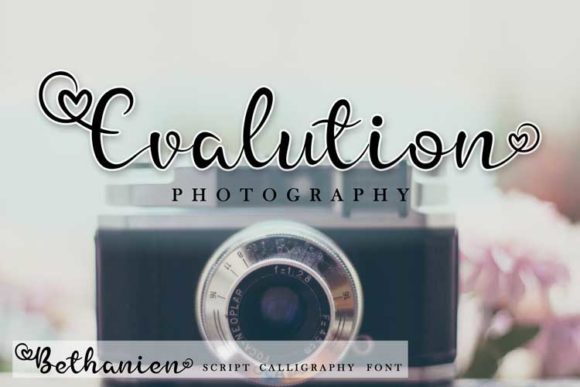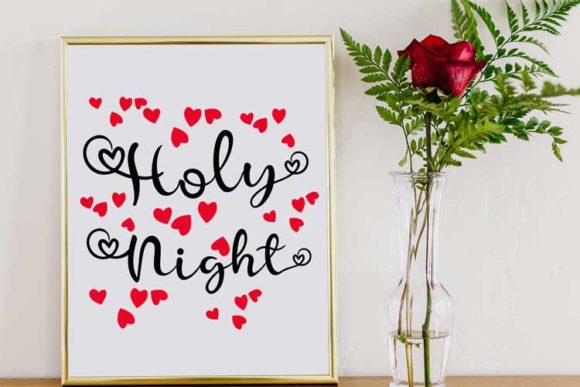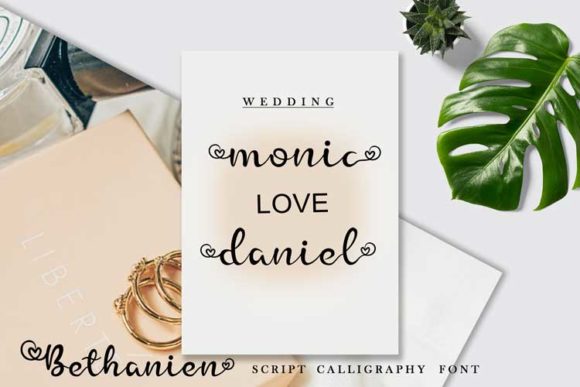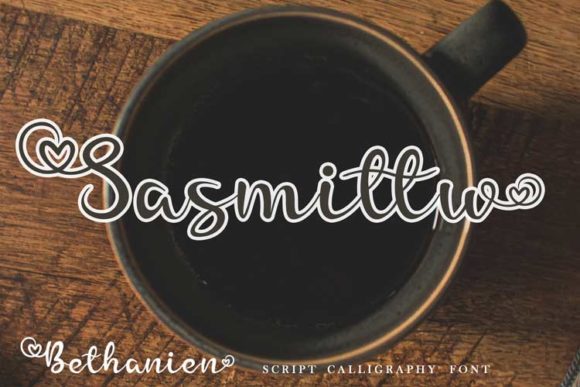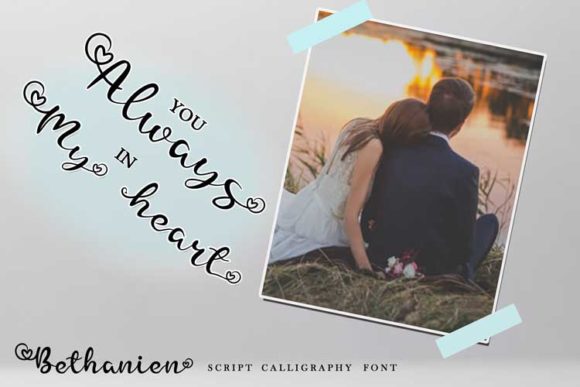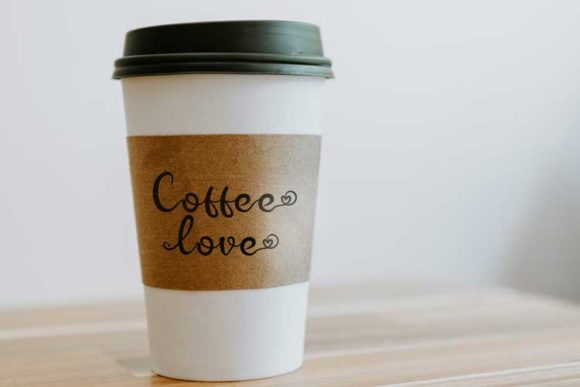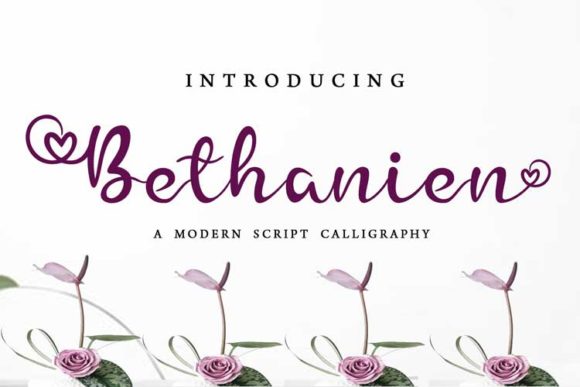
Bethanien Font: The Sweet and Romantic Handwritten Font for Your Creative Projects
Are you a designer or crafter looking for a beautiful and elegant handwritten font to add a touch of romance and sweetness to your creative projects? Look no further than the Bethanien Font! This stunning font is perfect for a variety of design needs, including wedding invitations, thank you cards, quotes, greeting cards, logos, business cards, and more.
The Characteristics of Bethanien Font
Bethanien is a sweet and romantic handwritten font that exudes elegance and sophistication. Its flowing lines and delicate curves make it perfect for designs that require a personal and intimate touch. The font is highly versatile and can be used for a wide range of creative projects, from formal wedding invitations to casual greeting cards.
Why Choose Bethanien Font?
So, why choose Bethanien Font for your creative projects? Here are just a few reasons:
- Unique and Elegant Design: Bethanien Font has a unique and elegant design that will add a touch of sophistication to your designs.
- Highly Versatile: The font is highly versatile and can be used for a wide range of creative projects, from formal to casual.
- PUA Encoded: Bethanien Font is PUA encoded, which means you can access all of the glyphs and swashes with ease.
The Benefits of PUA Encoding
One of the standout features of Bethanien Font is its PUA encoding. But what does this mean, and how will it benefit you? PUA (Private Use Area) encoding is a system that allows font creators to include additional characters and glyphs in their fonts. This means that Bethanien Font comes with a range of extra characters and swashes that you can use to add an extra touch of elegance and sophistication to your designs.
With PUA encoding, you can access all of the glyphs and swashes with ease, using a program like Adobe Illustrator or Microsoft Word. This makes it easy to add flourishes and decorations to your text, creating a truly unique and eye-catching design.
Bethanien Font is ideal for designers and crafters who are looking for a beautiful and elegant handwritten font to add a touch of romance and sweetness to their creative projects. Whether you’re creating wedding invitations, greeting cards, or logos, this font is sure to impress.
As a designer or crafter, you know how important it is to have a range of high-quality fonts at your disposal. Bethanien Font is a great addition to any font library, and is sure to be a go-to choice for a wide range of design needs.
In conclusion, Bethanien Font is a sweet and romantic handwritten font that is perfect for designers and crafters who are looking for a beautiful and elegant font to add a touch of romance and sweetness to their creative projects. With its unique and elegant design, highly versatile nature, and PUA encoding, this font is sure to be a hit with designers and crafters of all levels.